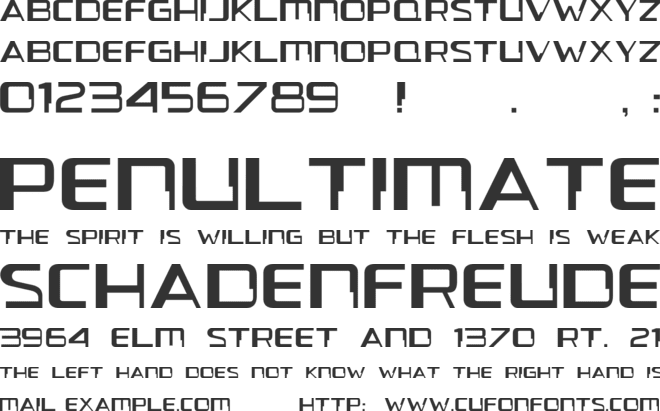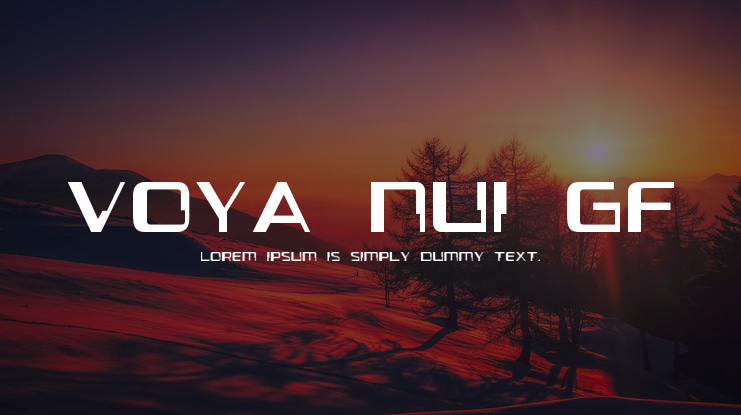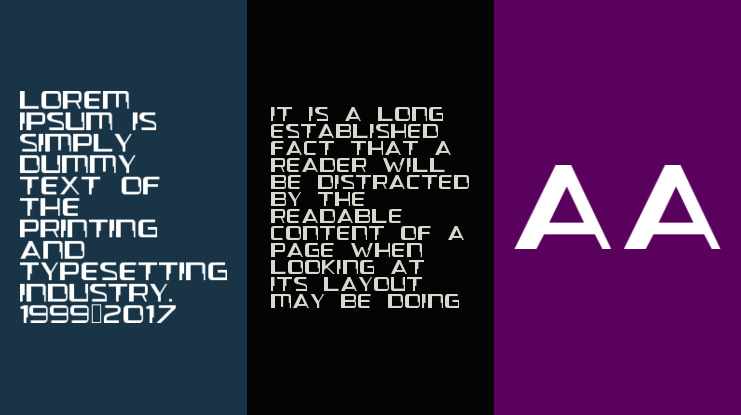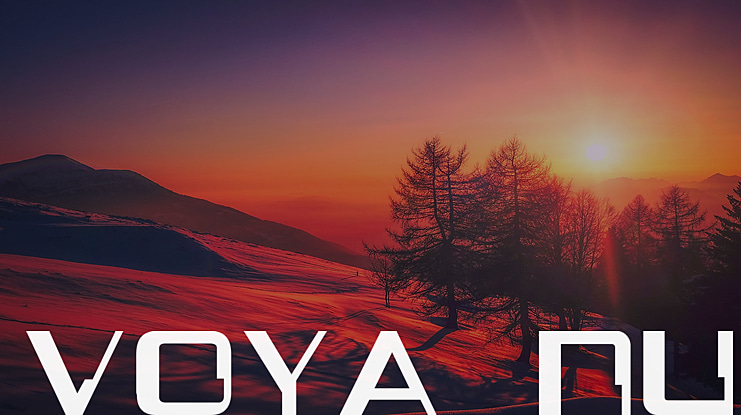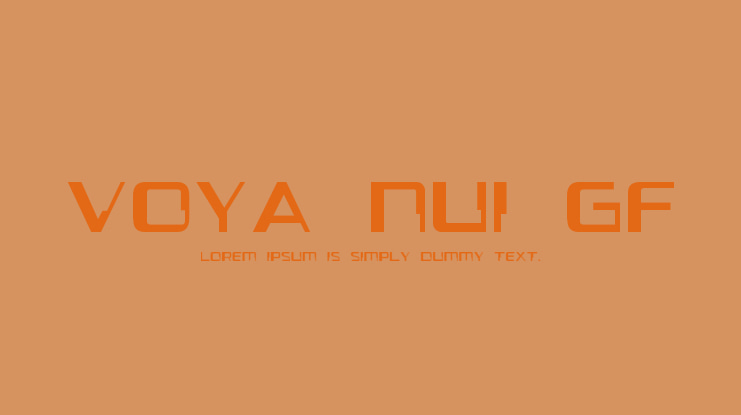
Voya Nui GF Font
This is meant to imitate the style of writing used on Bionicle products in the 2006 storyline. If at anytime the real version of this font becomes available, all use of this font must cease.